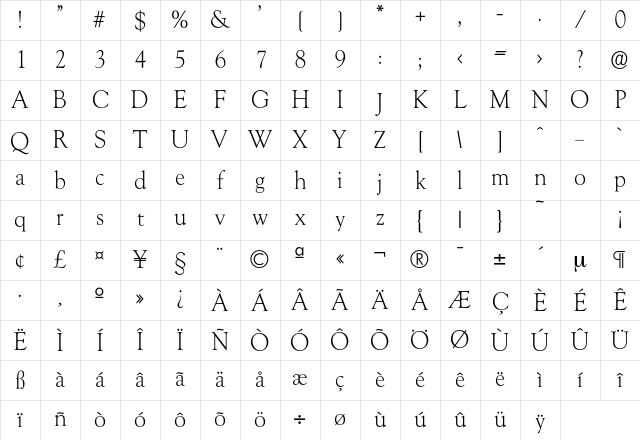
Goudx-Light Regular
Goudx-Light Regular Font Preview
Goudx-Light Regular Uppercase Preview
Goudx-Light Regular Lowercase Preview
Goudx-Light Regular Numeric Preview
Goudx-Light Regular Character Map
Complete Goudx-Light Regular glyph index. Displaying only characters natively supported by Goudx-Light Regular font.
Design Context for Goudx-Light
Goudx-Light is a composed and adaptable typeface that performs quietly and consistently across a wide range of design contexts. Its slender proportions lend an understated elegance to any composition.